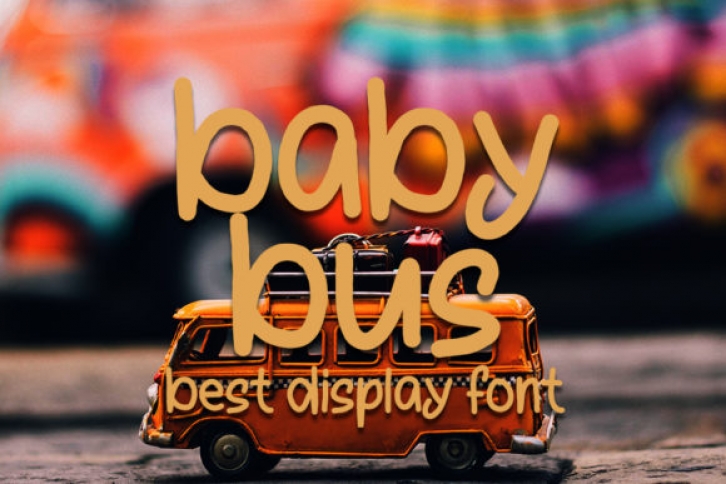
Baby Bus is a cute and friendly handwritten font. Fall in love with its incredibly distinct and timeless style and use it to create spectacular designs!